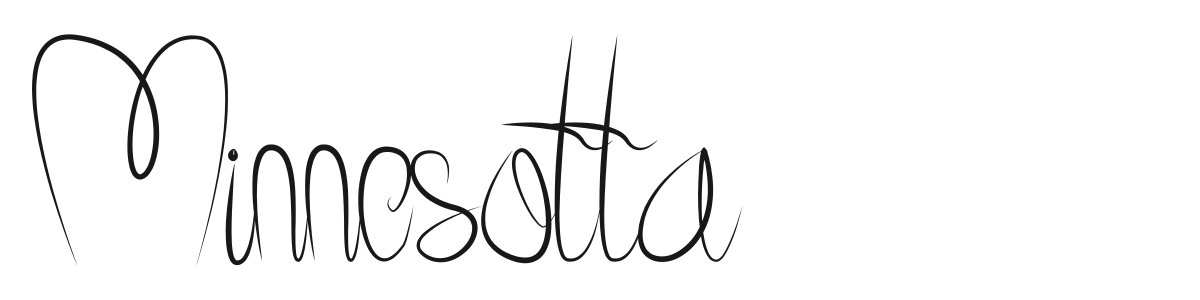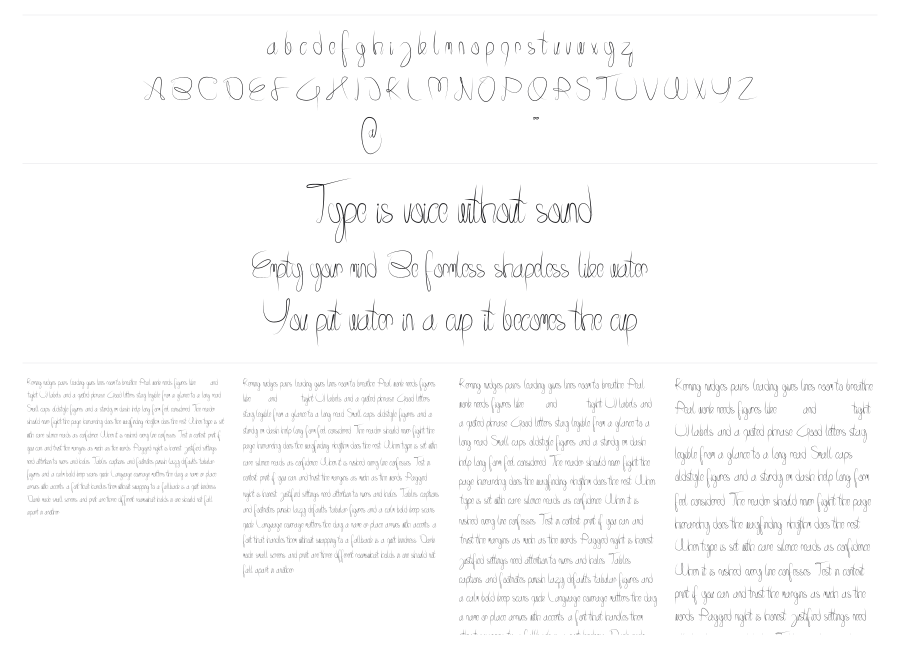
Minnesotta
Minnesotta is a light, flowing signature-style script from FallenGraphic with thin strokes and a feminine elegance that feels personal rather than generic. The letterforms have that slightly effortless quality of real pen-on-paper writing, keeping things graceful without becoming overly formal. A natural pick for wedding stationery, beauty branding, invitations, and anywhere that calls for delicate, handwritten warmth.